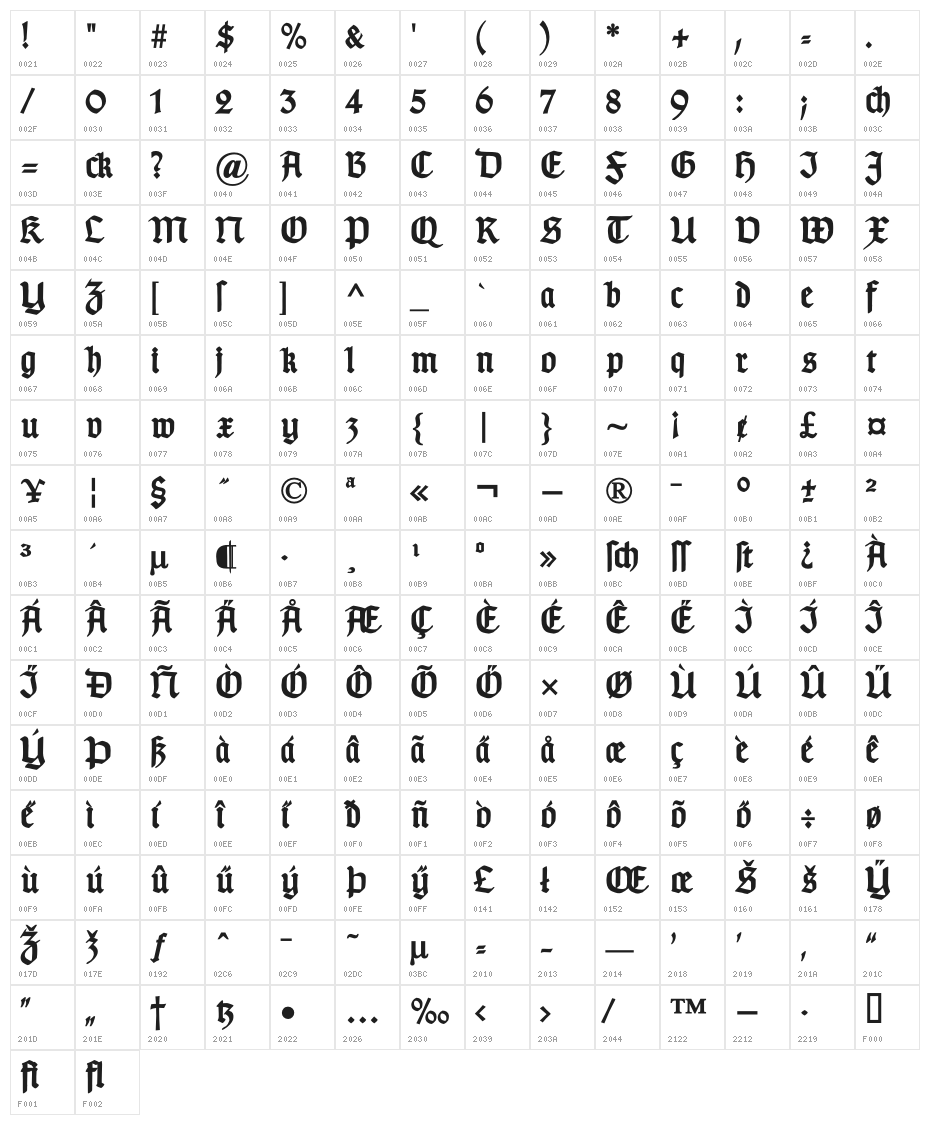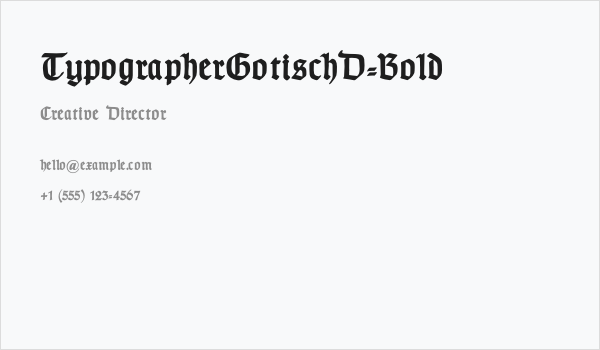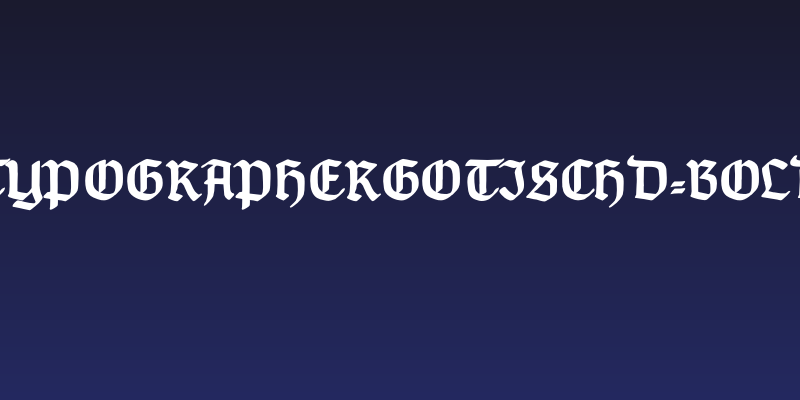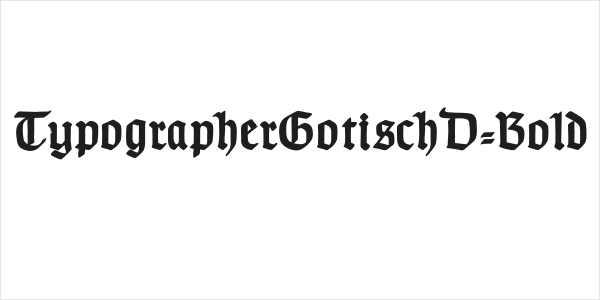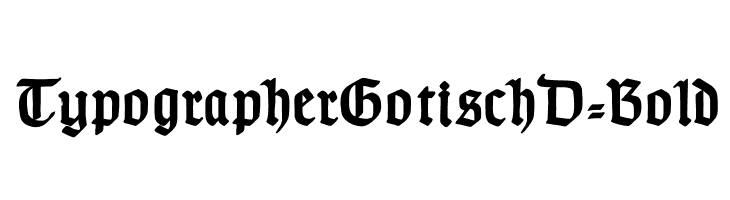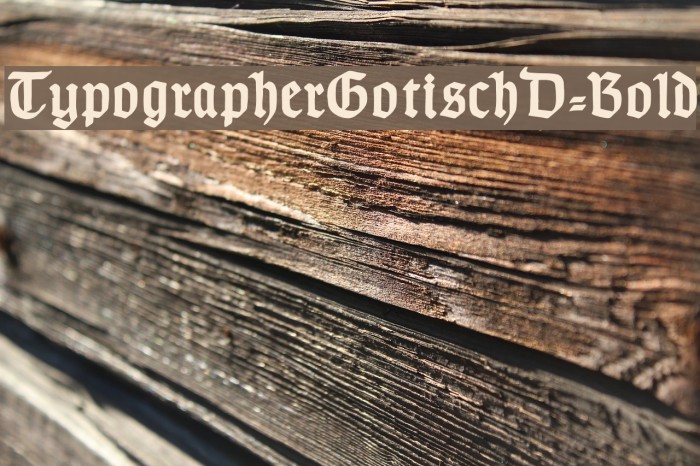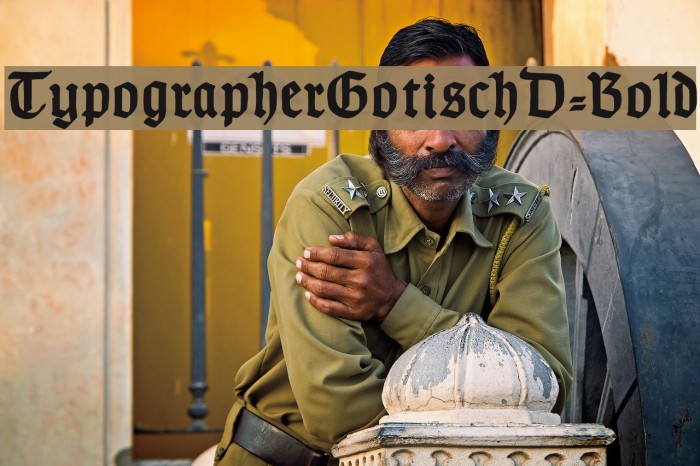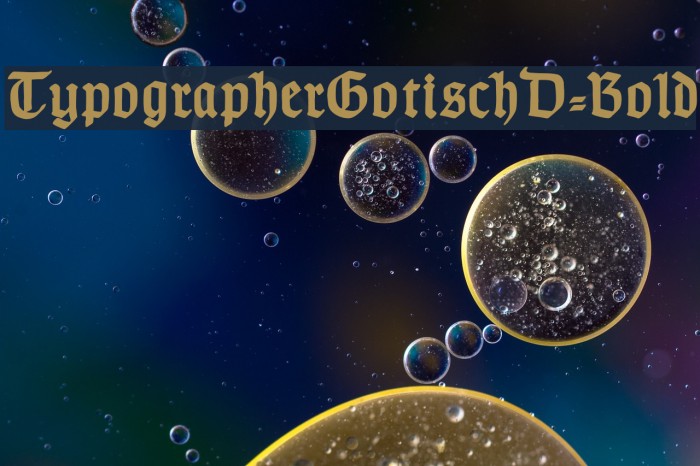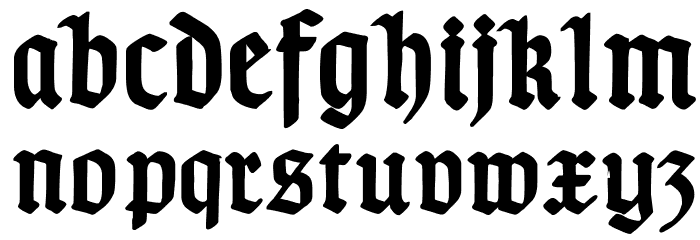
TypographerGotischD-Bold Font
TypographerGotischD-Bold Description
This font embodies the traditional and intricate style of Blackletter typography, characterized by its bold, angular strokes and ornate detailing. The uppercase letters exhibit a strong, authoritative presence with sharp edges and pointed serifs, while the lowercase letters maintain a consistent flow with a slightly more rounded appearance. The numerals are distinct and maintain the same boldness, ensuring readability. Special characters are crafted with the same attention to detail, enhancing the font's decorative appeal. This font is perfect for projects that require a historical or gothic aesthetic.
| Use Case | Headlines, Logos, Decorative text |
| Proposed Projects | Ideal for historical documents, gothic-themed designs, book covers, and event invitations. |